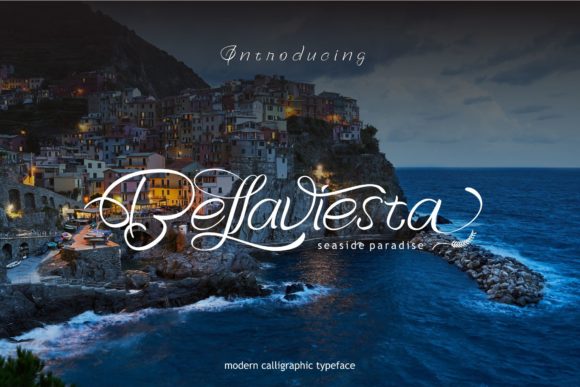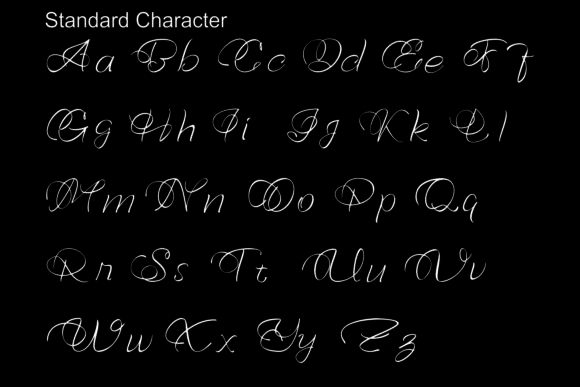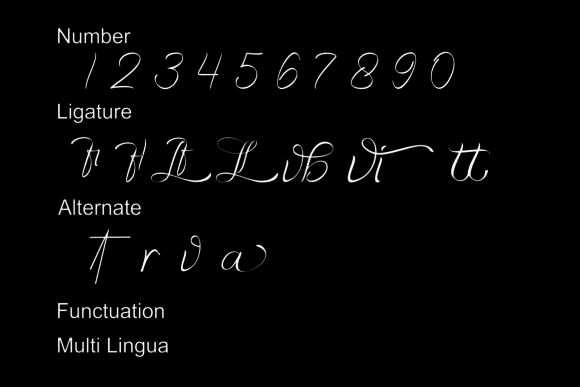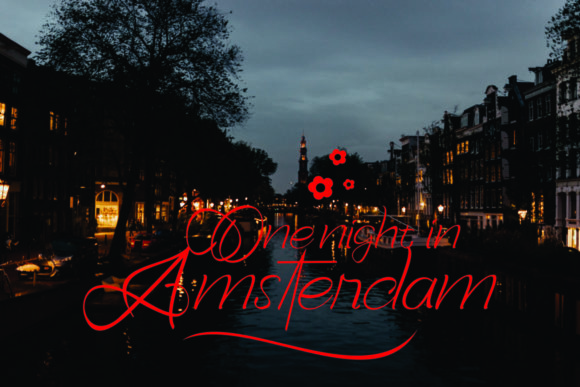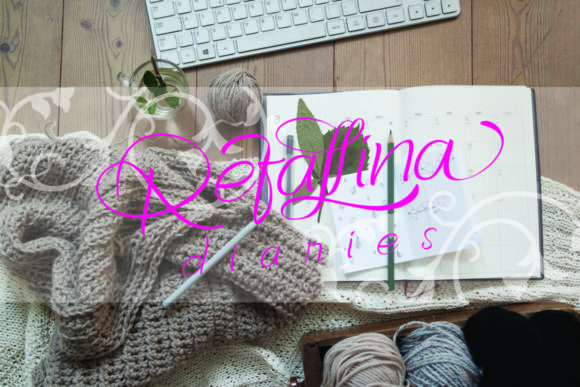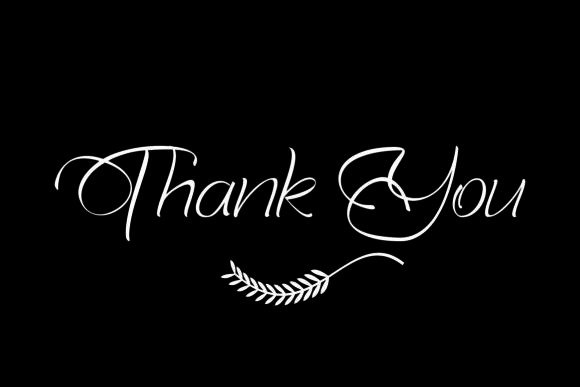
Bellaviesta Font
About Bellaviesta Font
The Bellaviesta is a modern calligraphy font. It has an elegant style and is perfect for adding a luxurious look to your designs.
It can be used for logos, product brands, wedding invitations, movie titles, book titles, web titles, and much more!